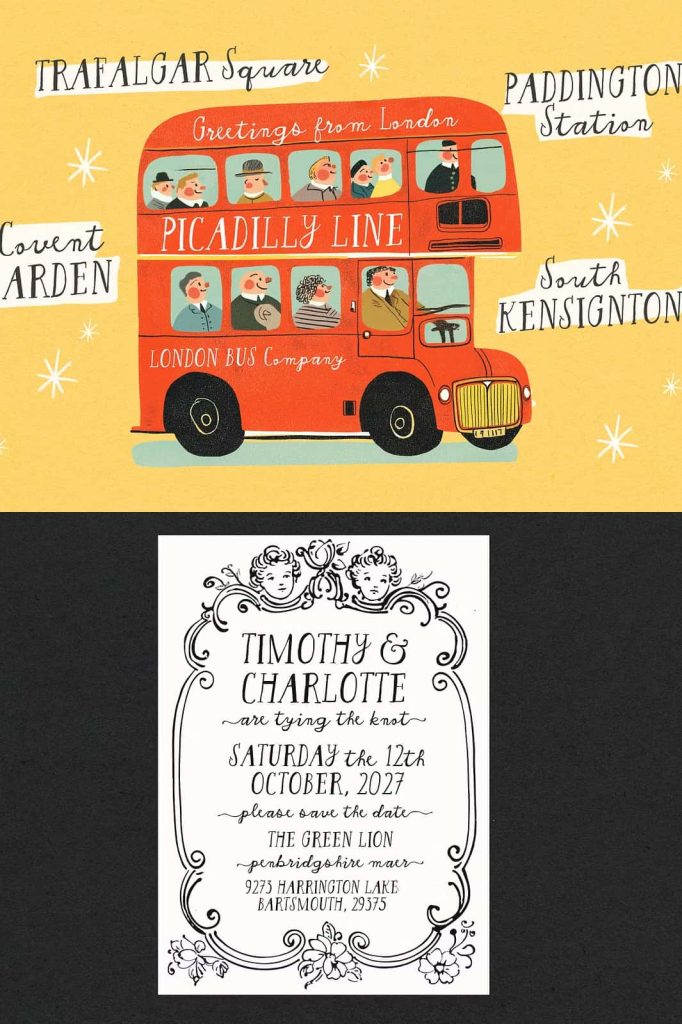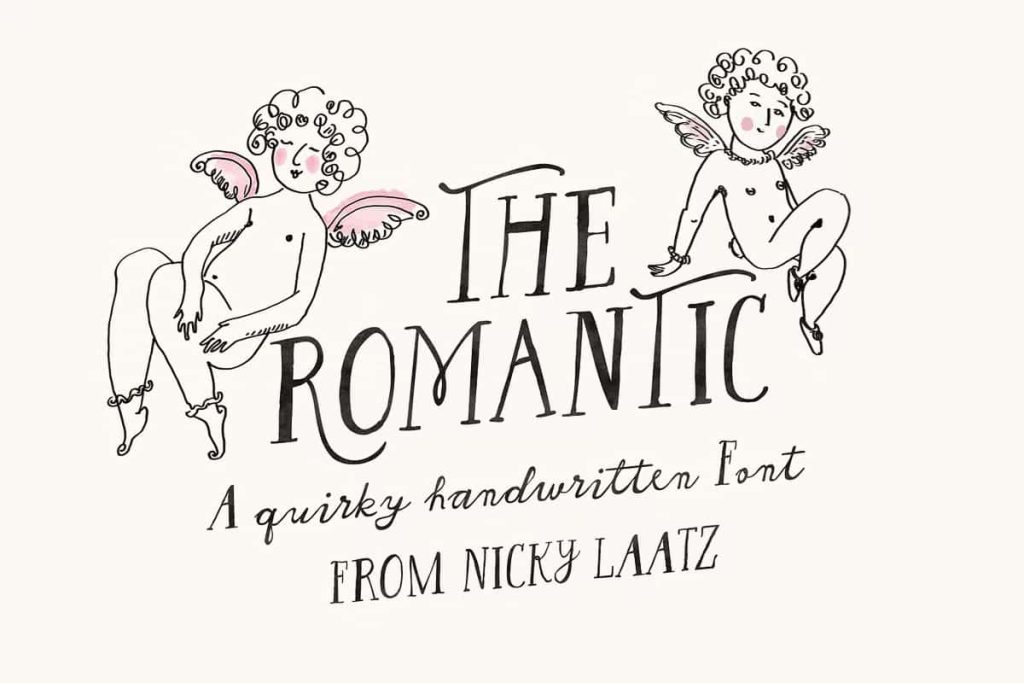
Romantic Hand Drawn Script Serif Font
The Romantic Hand Drawn Script Serif Font is a beautifully crafted typeface that blends the elegance of classic serif lettering with the expressive flow of hand-drawn script. Inspired by antique quilled hand lettering, this font captures the timeless beauty of vintage calligraphy while introducing a fresh, handcrafted appearance suitable for modern creative projects. Every letter reflects careful attention to detail, making your typography feel authentic, artistic, and full of personality.
Whether you are designing branding materials, wedding invitations, product packaging, editorial layouts, or social media graphics, this font delivers warmth and sophistication with every word. Its organic curves, delicate imperfections, and graceful letterforms create a natural handwritten aesthetic that instantly adds charm to your designs.
Inspired by Traditional Quilled Hand Lettering
The Romantic Hand Drawn Script Serif Font celebrates the beauty of traditional penmanship. Drawing inspiration from antique quill lettering, each character features subtle variations that recreate the appearance of genuine handwritten text. Instead of rigid geometric forms, every letter flows naturally, giving your typography an elegant and human touch.
The combination of script influences and refined serif details creates a distinctive hybrid style that works beautifully across both decorative headlines and stylish branding applications. This balance allows the font to remain artistic without sacrificing readability.
Expressive Letterforms with Natural Movement
Elegant Lowercase Characters
The flowing lowercase letters introduce softness and movement throughout every sentence. Their connected rhythm creates an inviting reading experience while maintaining excellent legibility. The handcrafted appearance makes each word feel personal, making the font especially suitable for heartfelt messages, romantic branding, and creative storytelling.
Distinctive Uppercase Letters
The tall and expressive uppercase characters provide striking visual impact. Each capital letter has been thoughtfully designed to stand confidently while harmonizing perfectly with the flowing lowercase forms. Use them to create memorable logos, elegant titles, or sophisticated monograms that immediately capture attention.
Creative Features That Expand Your Design Possibilities
One of the greatest strengths of the Romantic Hand Drawn Script Serif Font lies in its extensive collection of OpenType features. These professional typography tools give designers complete creative control over every project.
- Beautiful stylistic alternates for unique letter combinations.
- Elegant ligatures that improve natural letter connections.
- Decorative swashes for dramatic flourishes and artistic finishes.
- Handcrafted character variations that prevent repetitive typography.
- Smooth letter transitions that create an authentic handwritten appearance.
These features allow you to experiment freely with different combinations, ensuring that every design feels custom-made rather than generated from a standard typeface. No two headlines or logos need to look identical, giving your projects a truly bespoke character.
Perfect for Professional and Personal Projects
The Romantic Hand Drawn Script Serif Font adapts effortlessly across a wide variety of creative applications. Its refined personality makes it an excellent choice for designers seeking typography that feels both luxurious and approachable.
Ideal Uses Include:
- Luxury branding and visual identities.
- Wedding invitations and stationery.
- Fashion and beauty packaging.
- Boutique logos and business cards.
- Book covers and editorial layouts.
- Greeting cards and personalized gifts.
- Social media graphics and digital content.
- Website headers and promotional materials.
- Product labels and premium packaging.
- Creative quotes and printable artwork.
The font performs beautifully in both print and digital environments, giving designers the flexibility to maintain a cohesive visual identity across multiple platforms.
Balanced Beauty and Readability
Although the Romantic Hand Drawn Script Serif Font embraces decorative craftsmanship, it remains highly readable at various sizes. The balanced proportions, consistent spacing, and carefully refined strokes allow text to maintain clarity while preserving its artistic appeal.
This versatility enables the font to perform equally well in large display titles, elegant logos, sophisticated invitations, and shorter body text where personality is desired without overwhelming the reader.
Create Authentic Typography with Lasting Appeal
If you are searching for a typeface that combines vintage elegance, handcrafted warmth, and modern versatility, the Romantic Hand Drawn Script Serif Font offers an exceptional solution. Its thoughtful blend of flowing script, classic serif influences, expressive uppercase letters, graceful lowercase characters, decorative swashes, and advanced OpenType features gives every project a timeless and memorable appearance.
From romantic wedding designs to premium branding projects, this font helps transform ordinary text into captivating typography that feels personal, refined, and beautifully handcrafted. Add depth, softness, and artistic character to your creative work while enjoying the flexibility to produce unique lettering compositions every time you design.